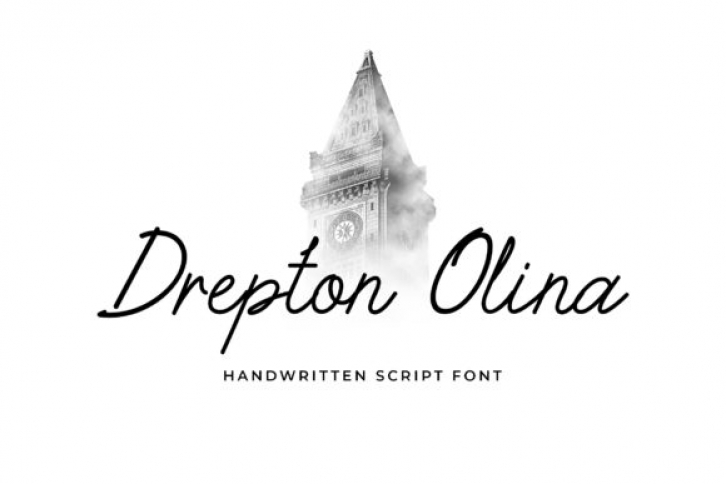
Drepton Olina is a thin lettered and well balanced handwritten font. Warm, romantic and jolly, this font will turn each of your project ideas into real works of art. Have fun with this beautiful font and explore its endless variations.